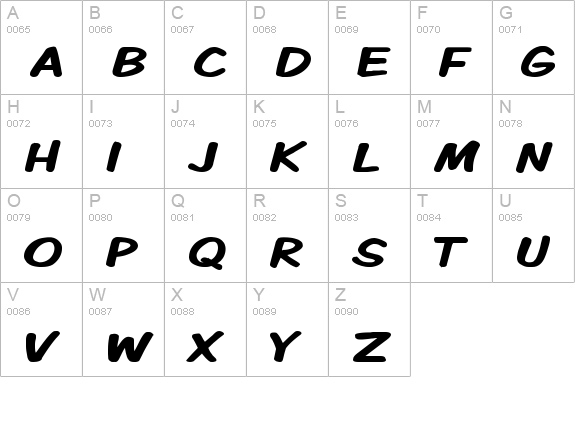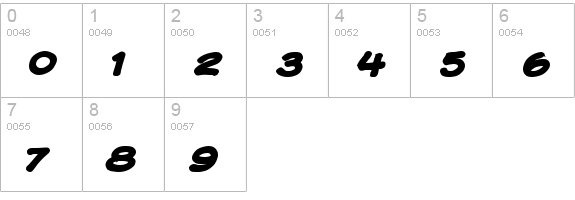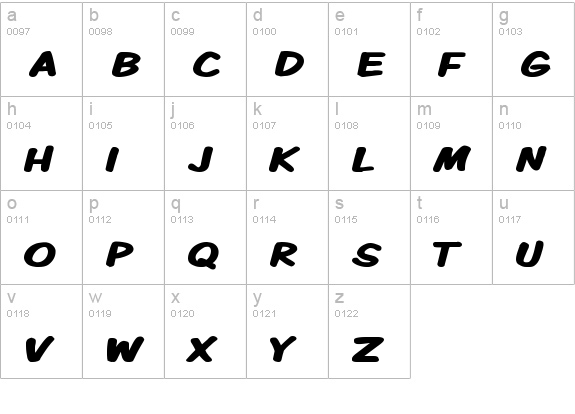
Komika Display Kaps Wide Bold is a strong, high-contrast, extended-width variant in the Komika typeface family \xE2\x80\x94 well suited to headlines, attention-grabbing titles, and strong calls-to-action.
Komika Display Kaps Wide Bold font is a striking and eye-catching typeface that commands attention with its bold and wide letterforms. Perfect for headlines, posters, and other display purposes, this font exudes a sense of modernity and strength. What makes Komika Display Kaps Wide Bold even more appealing is that it is available for free download at FontsMarket.com. This means you can easily access and use this impressive font in your design projects without any cost. Don't miss out on the opportunity to elevate your designs with the impactful and dynamic Komika Display Kaps Wide Bold font.